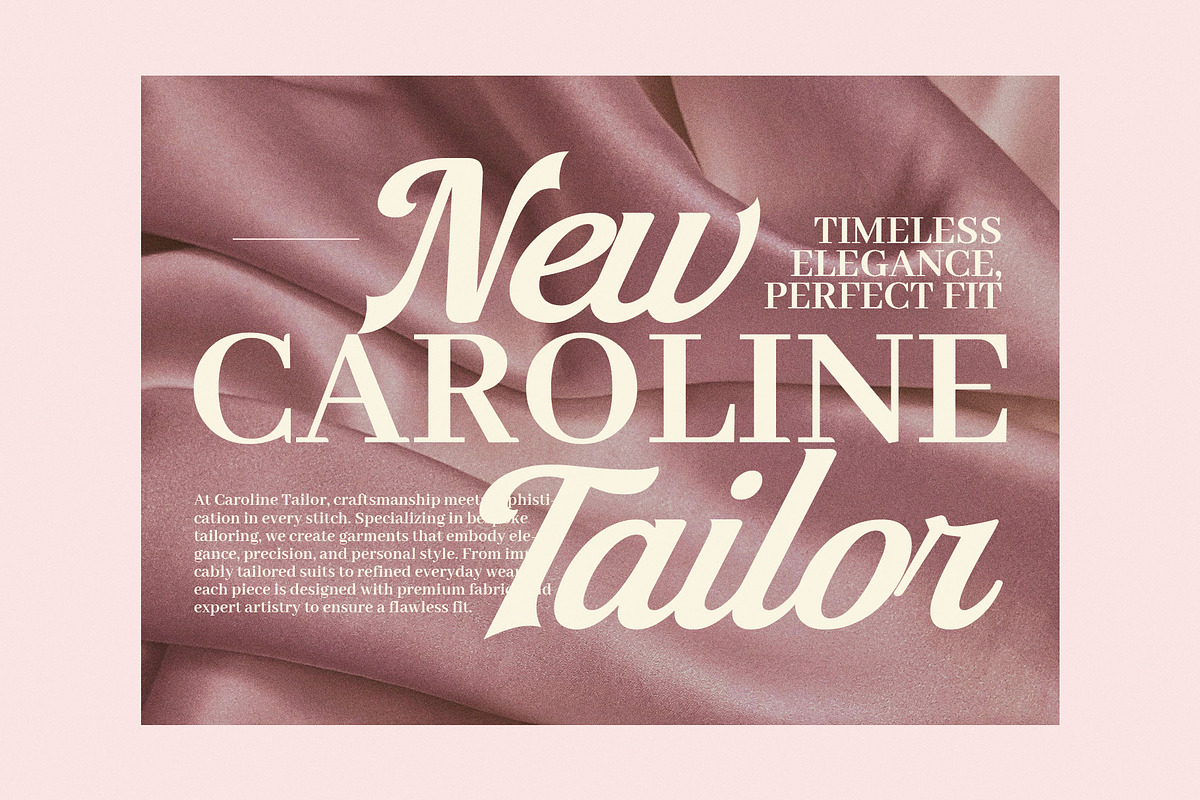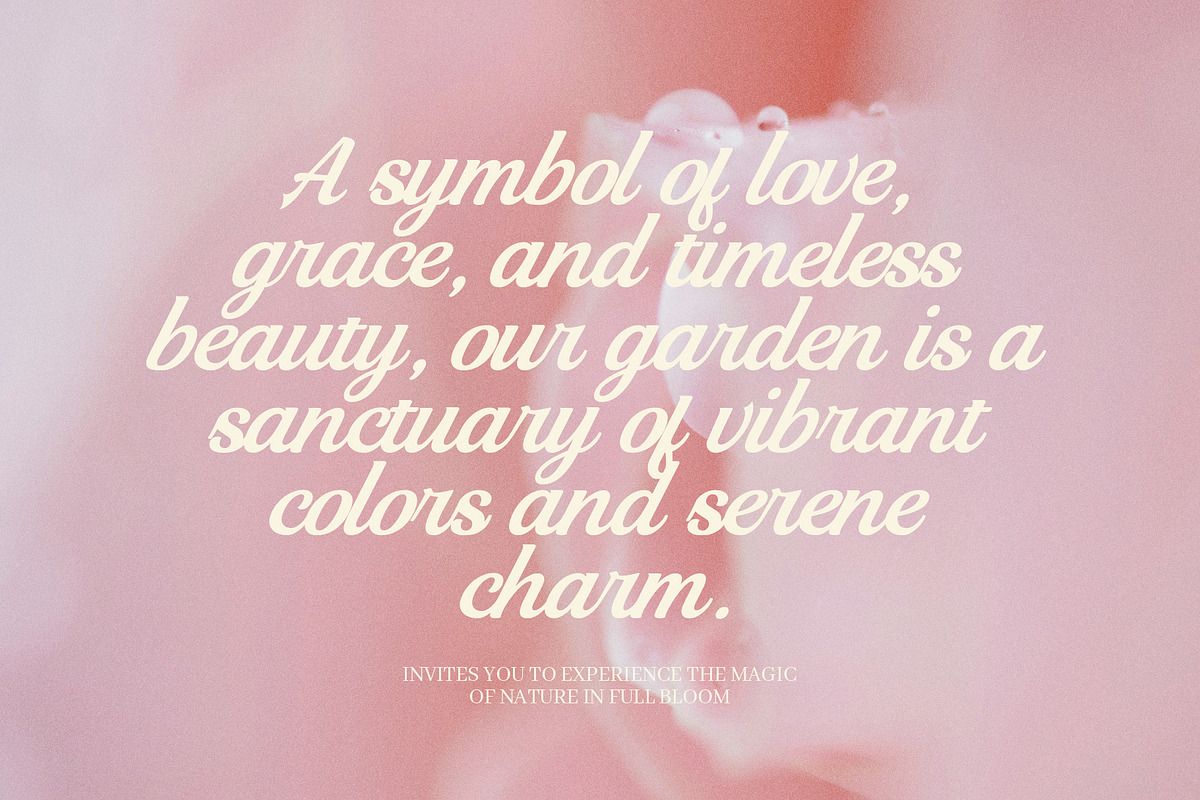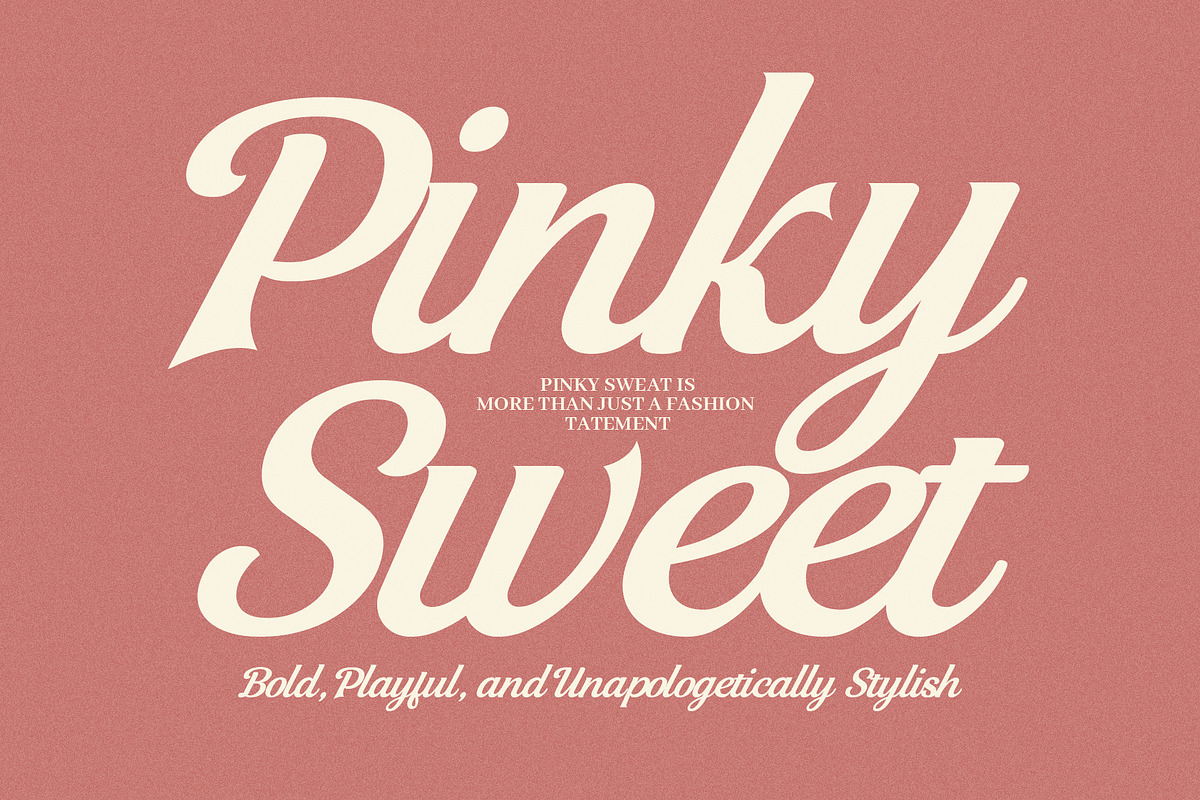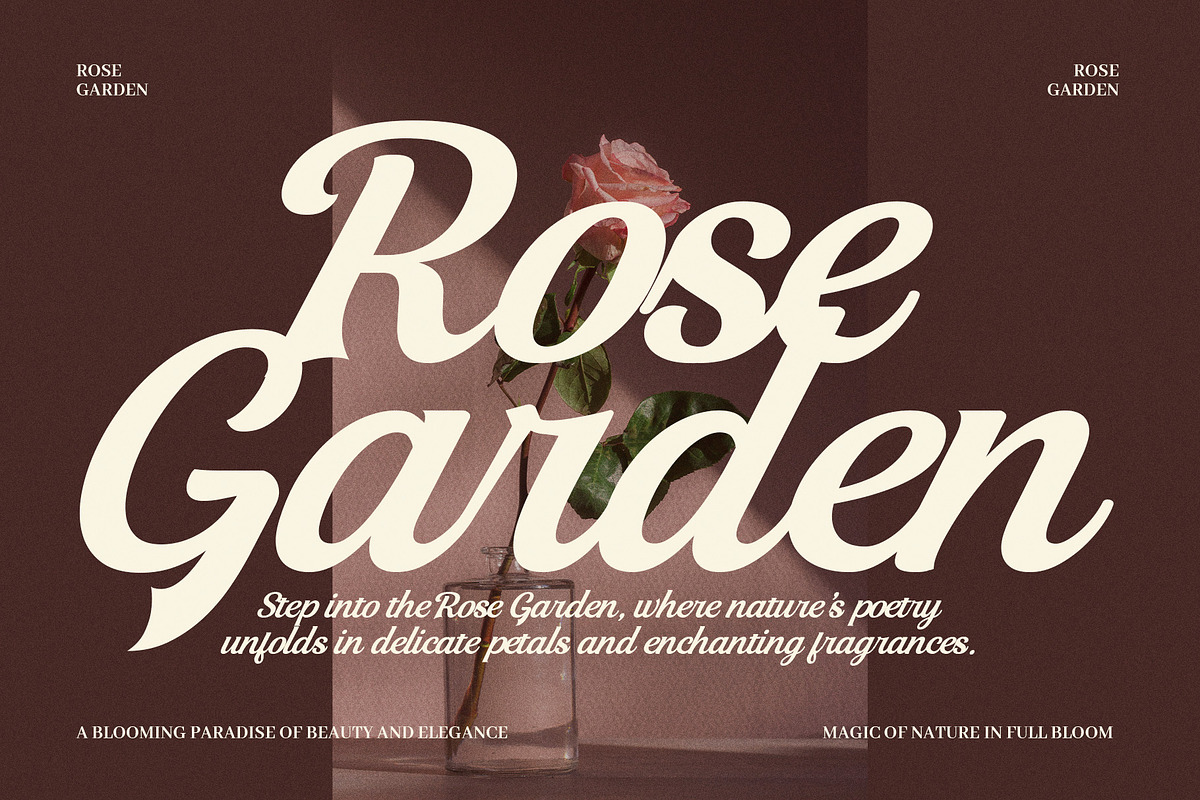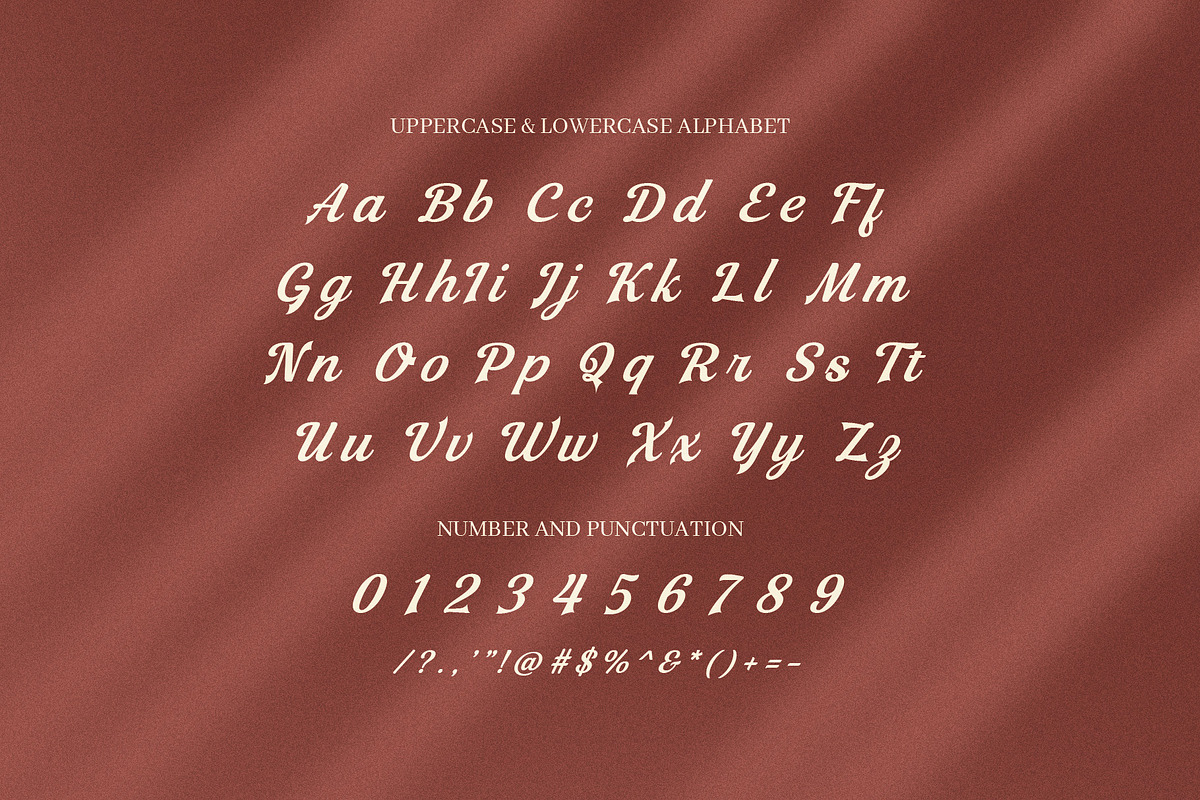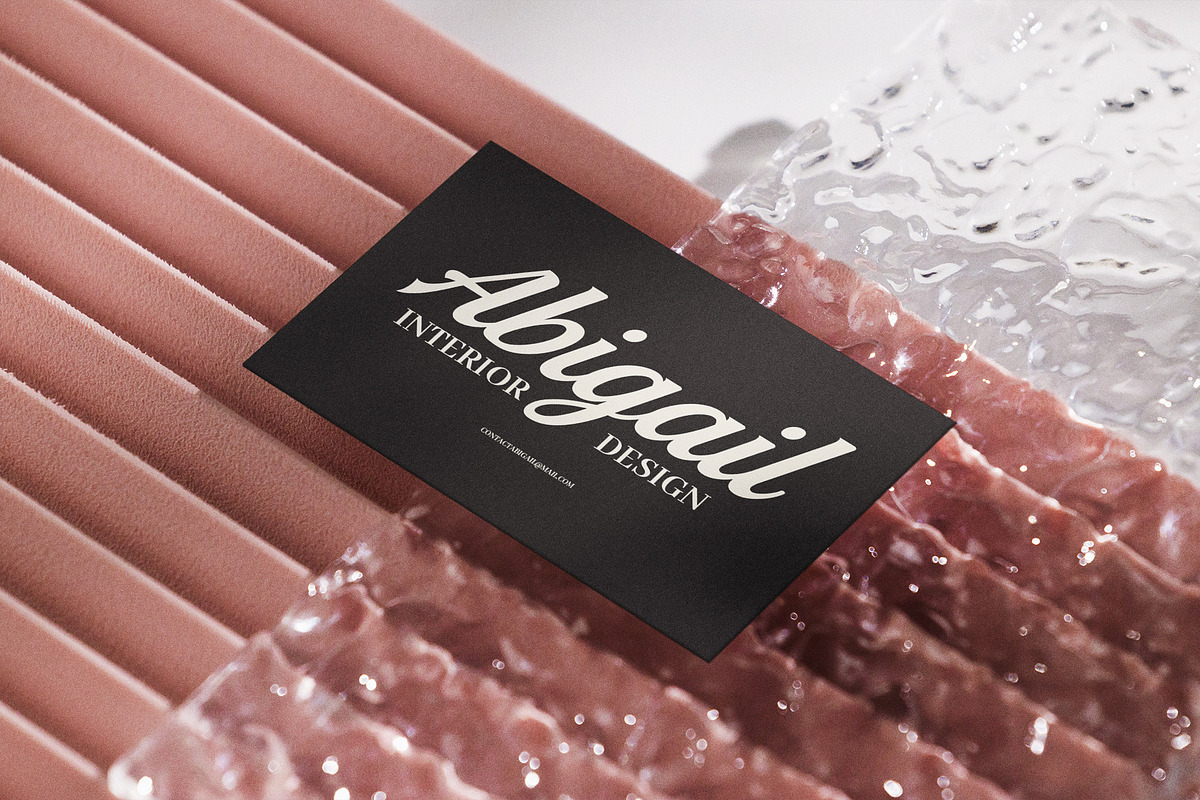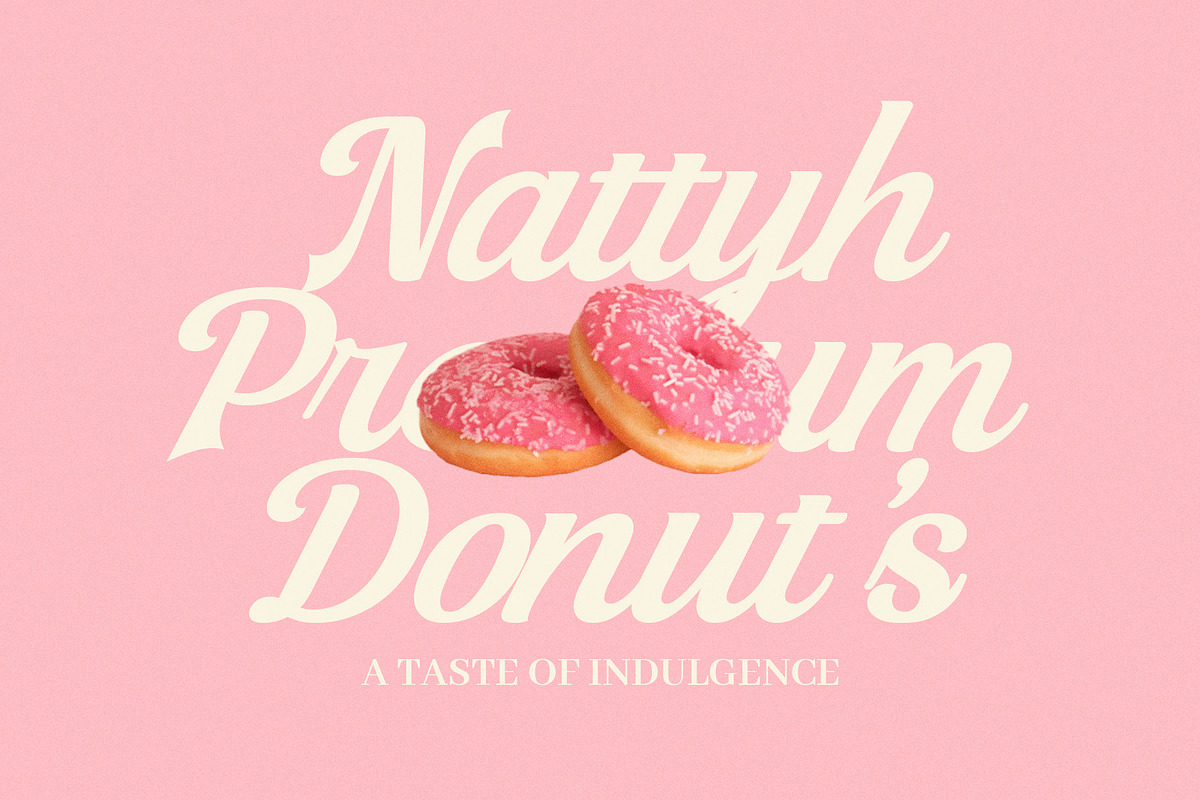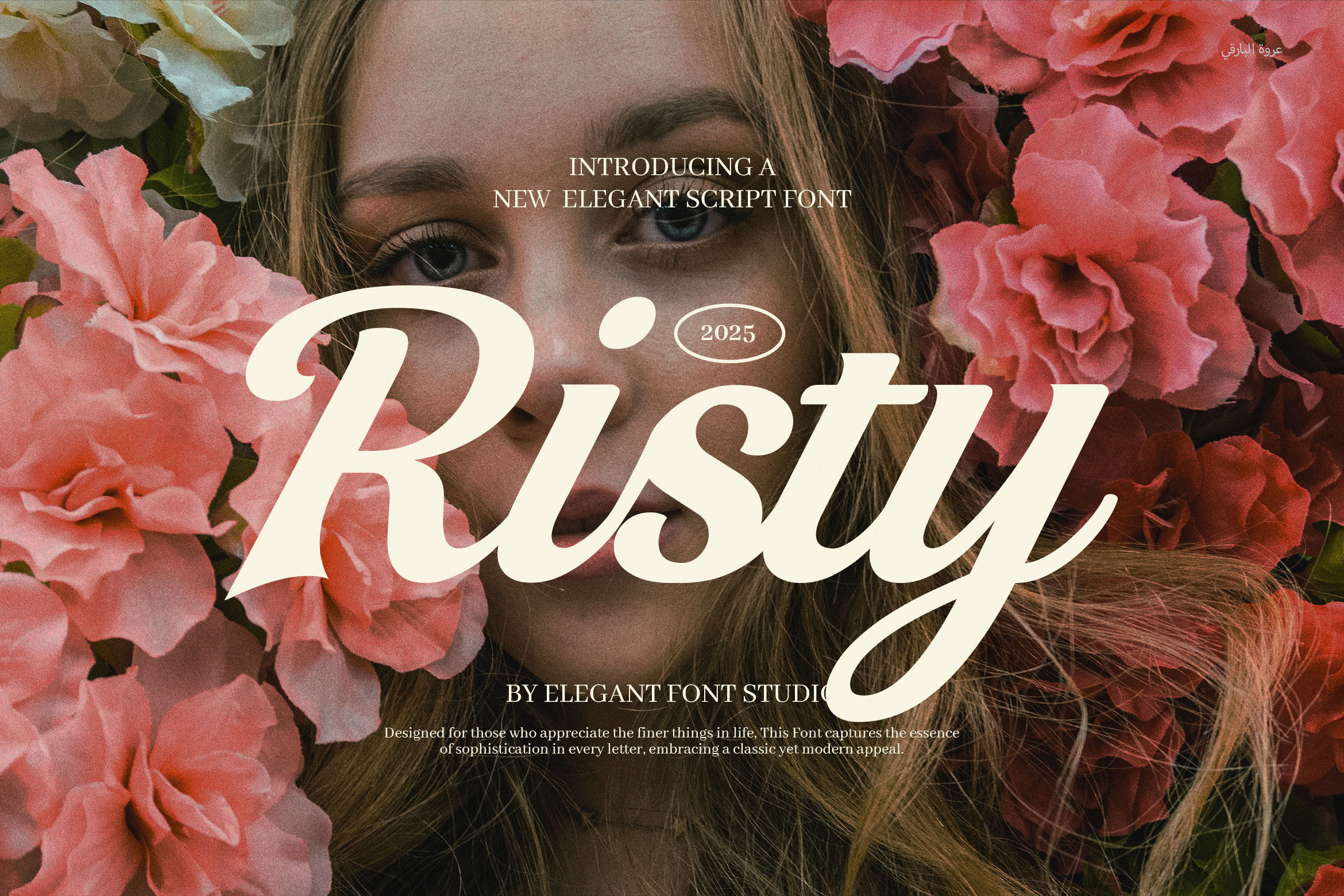
Risty Script Font
Introducing Risty Script Font, an elegant and classy script typeface designed to add sophistication and charm to every creative project. This font stands out with its beautiful letterforms, featuring smooth curves and stylish calligraphy alternates that bring a luxurious and timeless feel. Whether you’re designing branding, wedding invitations, logos, or magazines, Risty elevates your work with its graceful and polished style.
One of Risty’s key strengths lies in its versatility. With a variety of ligatures and diverse calligraphy alternates, this font offers flexible options to create unique and flowing text that looks natural yet artistic. This makes Risty an ideal choice for a wide range of design needs — from business cards and posters to websites and album covers.
Why Risty Script Font is Your Next Go-To Typeface:
Sophisticated Script Design: Brings a luxurious and refined look to all your projects.
Rich Ligature Support: Ensures smooth, connected letters for a natural handwritten effect.
Multiple Calligraphy Alternates: Adds creative variety to your text styling.
Versatile Applications: Perfect for branding, weddings, logos, invitations, advertisements, layouts, and more.
Highly Readable: Maintains clarity across both large and small text sizes.
Perfect for Business Use: Designed for companies seeking an elegant, professional font that impresses.
Whether you’re an individual designer or part of a large company, Risty Script Font provides a beautiful blend of elegance and functionality. Elevate your brand identity and creative projects effortlessly with this stylish and sophisticated script.